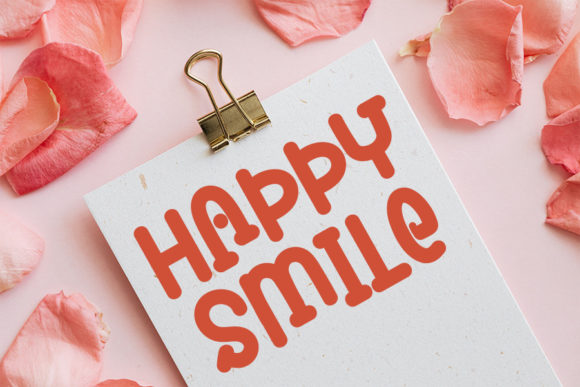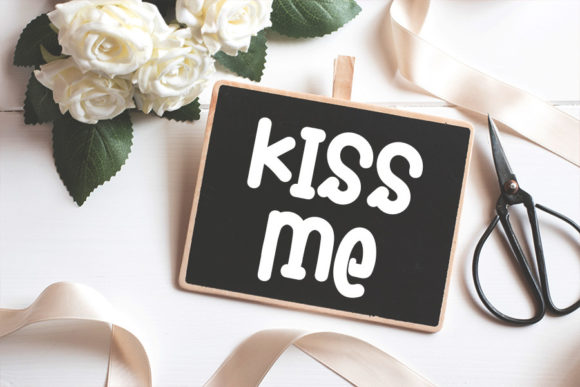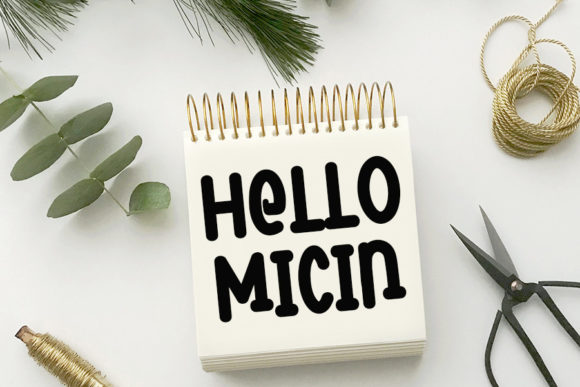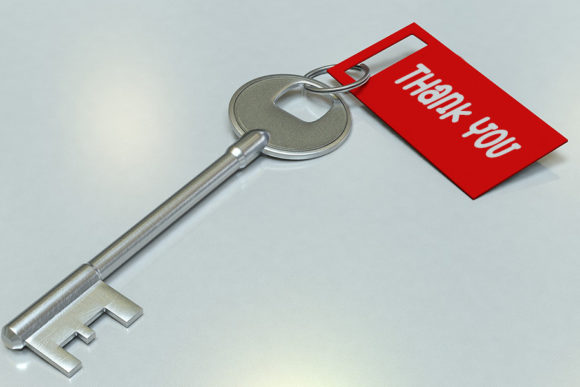
Introducing Abcde Font: The Modern, Quirky, and Cool Display Font
Are you tired of using the same old fonts for your designs? Look no further! Abcde Font is here to revolutionize your creative projects with its modern, quirky, and cool display font style. This charming font is perfect for designers and crafters who want to add a lovely touch to their work.
What Makes Abcde Font Special?
Abcde Font is a display font that boasts a unique and playful design. Its quirky style makes it an excellent choice for cartoon-related designs, children’s games, and any creation that requires a fun and youthful vibe. The font’s modern aesthetic ensures that it will make your designs stand out from the crowd.
Perfect for Cartoon-Related Designs
Abcde Font is an excellent choice for designers who work on cartoon-related projects. The font’s playful and quirky style brings a sense of fun and adventure to any design. Whether you’re creating a character’s dialogue bubble or a title card for an animated series, Abcde Font is sure to impress.
Great for Children’s Games and Educational Materials
Abcde Font is also perfect for designers who create educational materials and children’s games. The font’s child-friendly design makes it an excellent choice for projects aimed at young audiences. The font’s clarity and readability ensure that it’s easy for kids to read and understand.
Adding a Lovely Touch to Your Designs
Abcde Font is not just limited to cartoon-related designs and children’s games. This versatile font can be used in a wide range of creative projects, from branding and advertising to packaging and web design. The font’s quirky style adds a lovely touch to any design, making it perfect for designers who want to create unique and eye-catching work.
Key Features of Abcde Font
- Modern and quirky design: Abcde Font boasts a unique and playful design that’s perfect for designers who want to create modern and eye-catching work.
- Excellent readability: The font is designed to be clear and readable, making it perfect for use in a wide range of creative projects.
- Versatile: Abcde Font can be used in a variety of creative projects, from cartoon-related designs to branding and advertising.
- Child-friendly: The font’s playful design makes it an excellent choice for projects aimed at young audiences.
Tips and Tricks for Getting the Most Out of Abcde Font
- Experiment with different font sizes: Abcde Font looks great in a variety of font sizes, from large display fonts to smaller body text.
- Pair with other fonts: Abcde Font pairs well with other fonts, such as sans-serif fonts or script fonts. Experiment with different font combinations to create unique and eye-catching designs.
- Use in combination with images: Abcde Font looks great when used in combination with images, such as illustrations or photographs.
Abcde Font is a modern, quirky, and cool display font that’s perfect for designers and crafters who want to add a lovely touch to their work. With its unique and playful design, excellent readability, and versatility, Abcde Font is an excellent choice for a wide range of creative projects. Download Abcde Font today and take your designs to the next level!